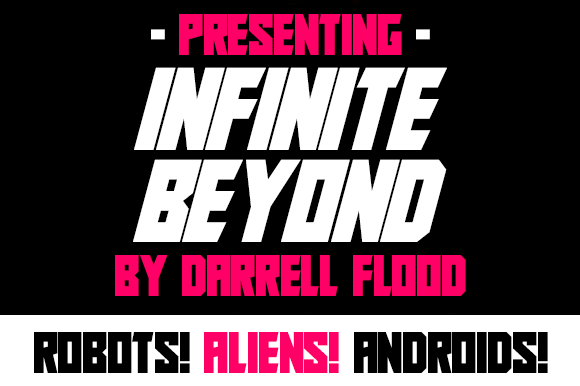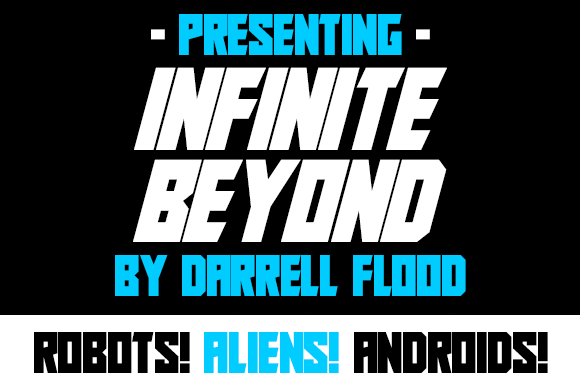
Introduction to Infinite Beyond Font
A modern, angular font in an edgy, energetic style.
Perfect for sci-fi themes, high-tech presentations, and general fiction use .
Key Features of Infinite Beyond Font
Why Choose Infinite Beyond Font?